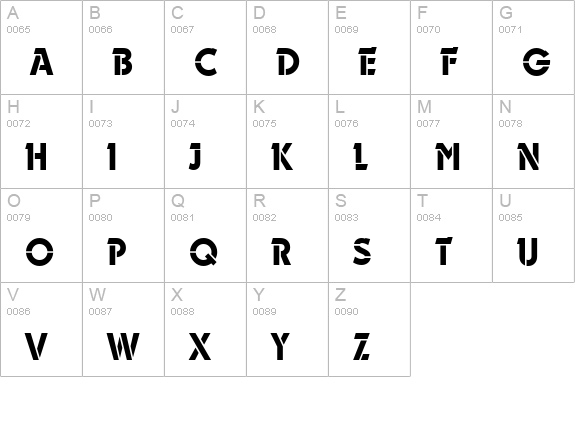
Durango-Stencil-Medium-Regular is a balanced, medium-weight variant in the Durango typeface family \xE2\x80\x94 well suited to sub-headlines, navigation, and balanced editorial work.
Durango-Stencil-Medium-Regular is a modern and versatile font that exudes a sense of strength and sophistication. Its clean and bold design makes it perfect for a wide range of projects, from branding to packaging to editorial design. The stencil effect adds a unique twist to the traditional sans-serif style, making Durango-Stencil-Medium-Regular stand out from the crowd. What sets Durango-Stencil-Medium-Regular apart is that it is not only stylish and functional but also free to download. You can easily access this font at FontsMarket.com, where you can unleash your creativity and elevate your designs with this eye-catching typeface. With its timeless appeal and contemporary edge, Durango-Stencil-Medium-Regular is sure to make a lasting impression on any project it graces.